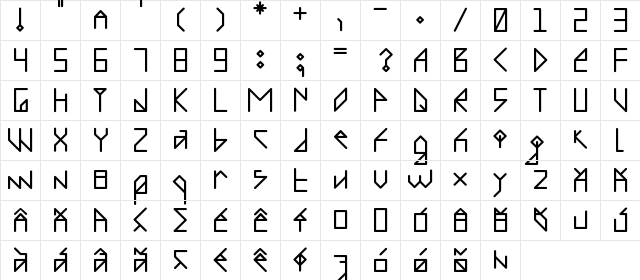
Recombinante Regular Free Font
Recombinante Regular
Recombinante Family
Recombinante Regular
Design Context for Recombinante
Recombinante is a composed and adaptable typeface that performs quietly and consistently across a wide range of design contexts.